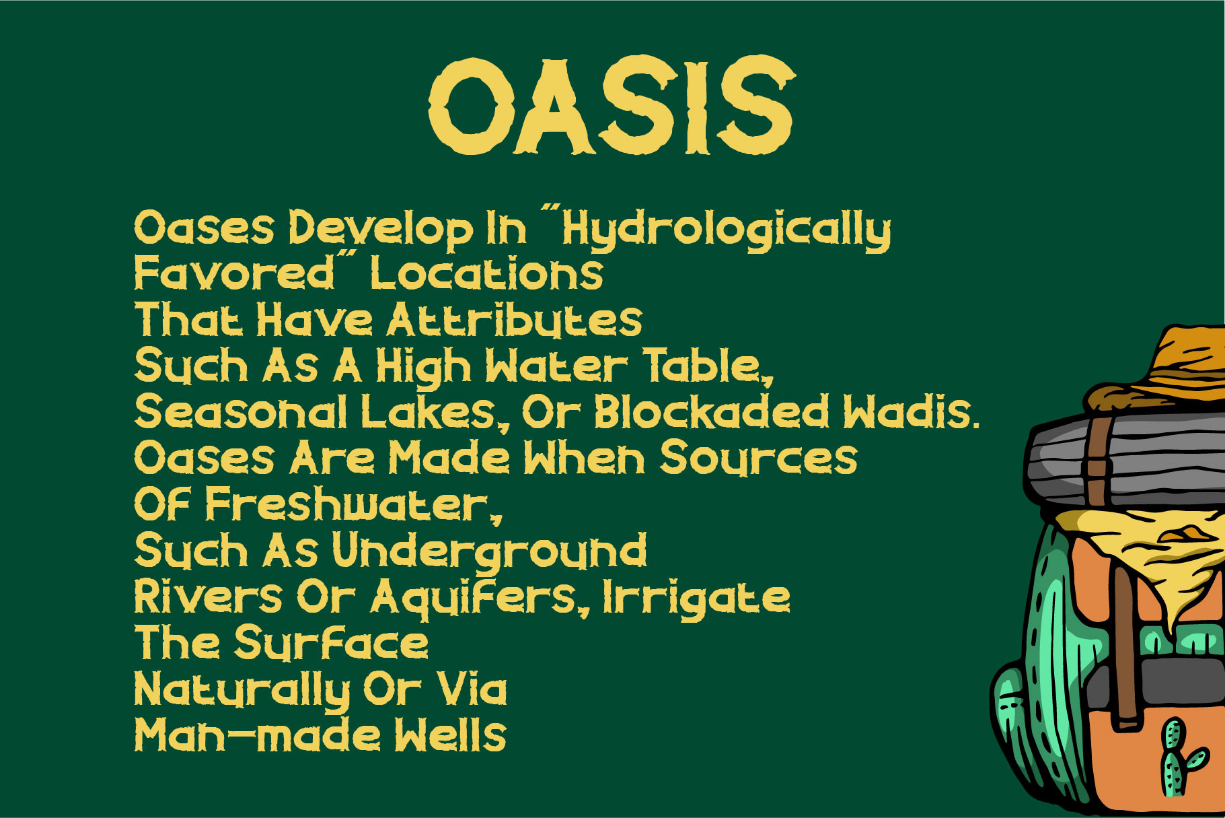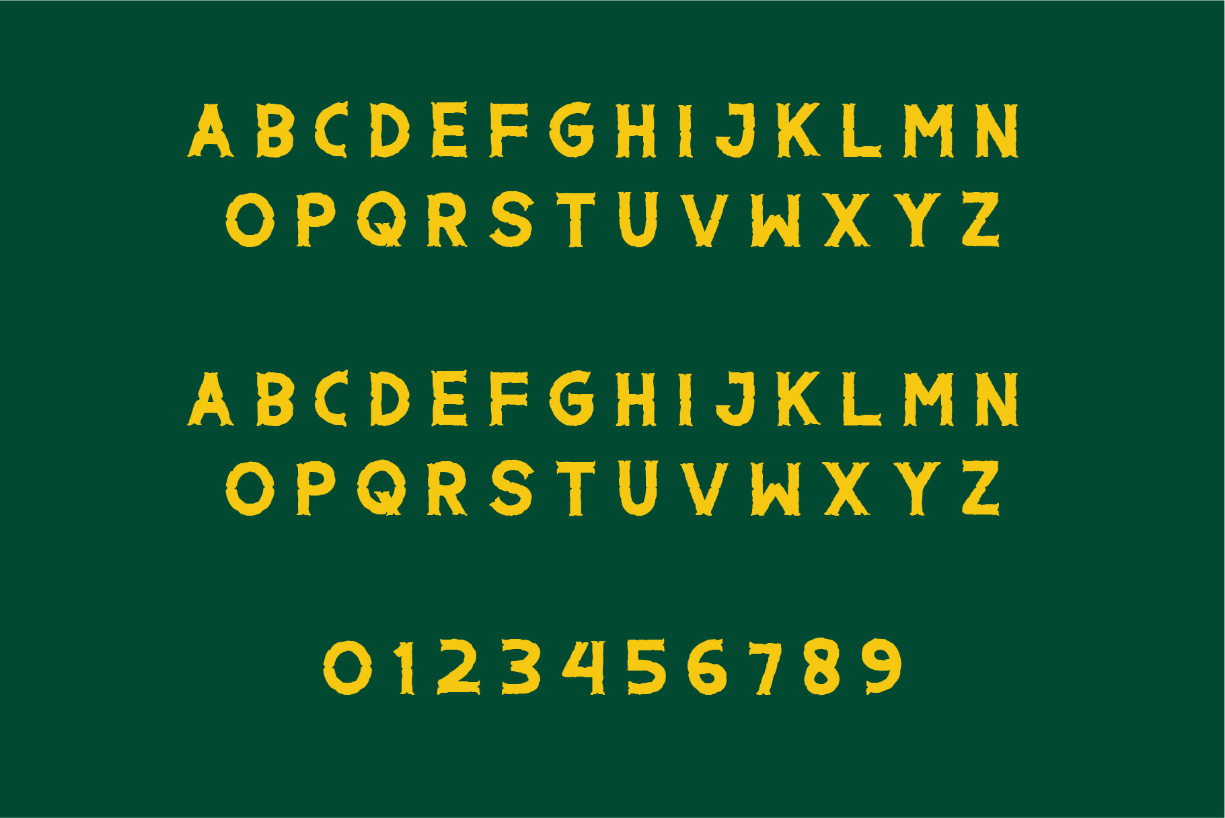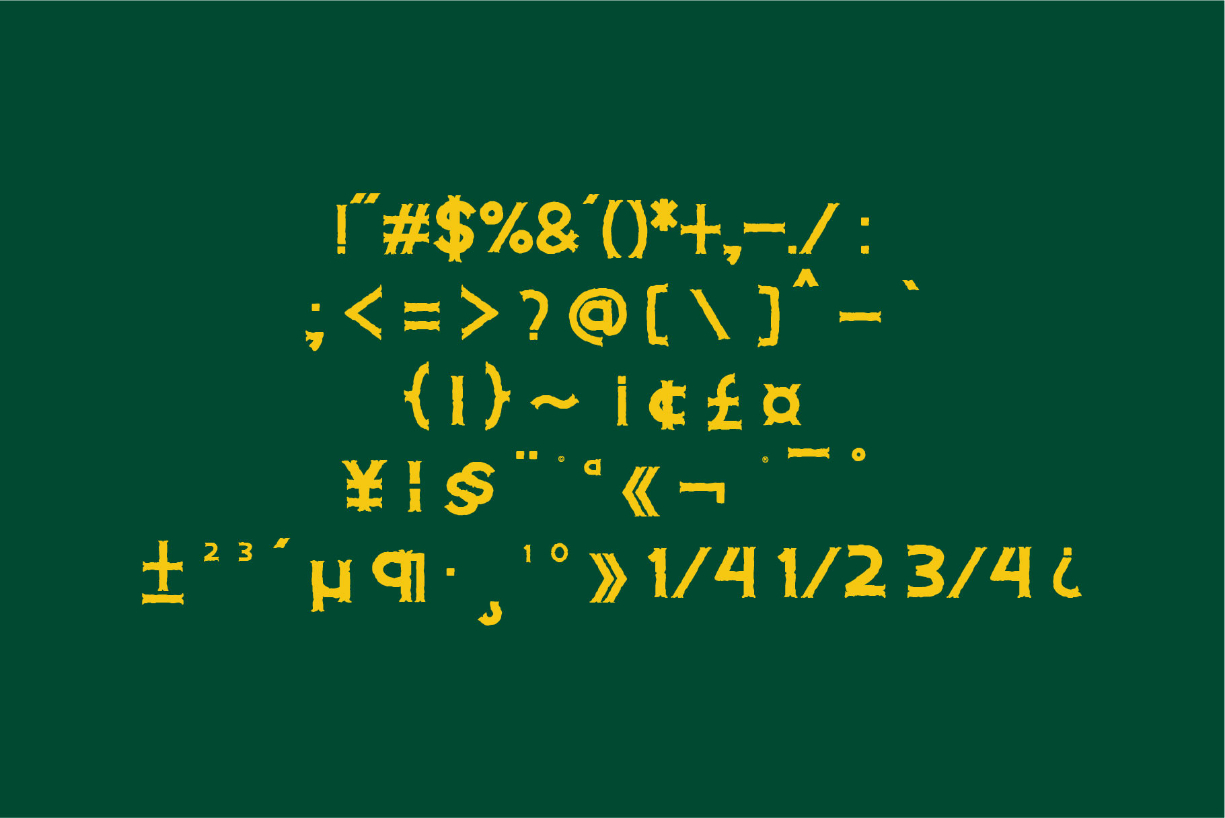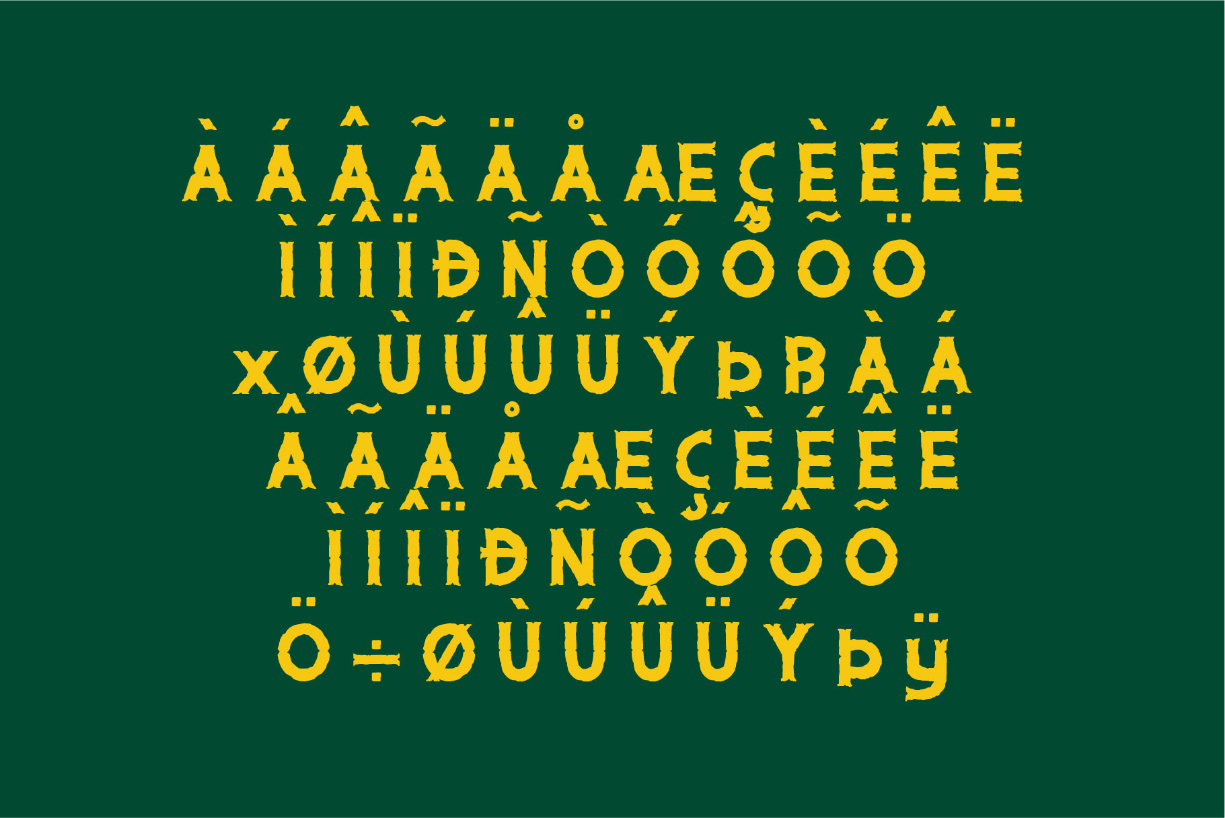
Oase Desert Font
About Oase Desert Font
Oase Desert is a bold and thick lettered blackletter font. Add it confidently to your projects, and you will love the results.